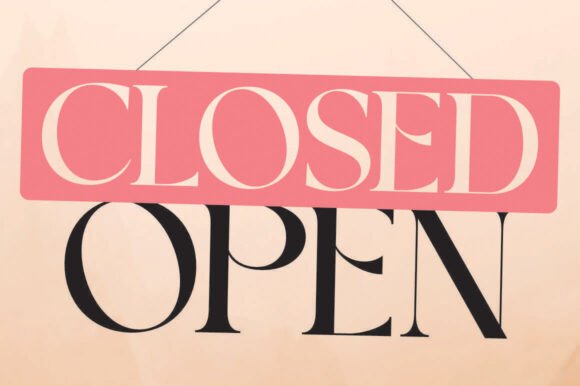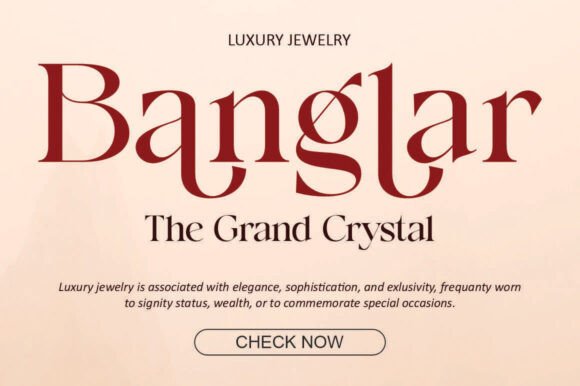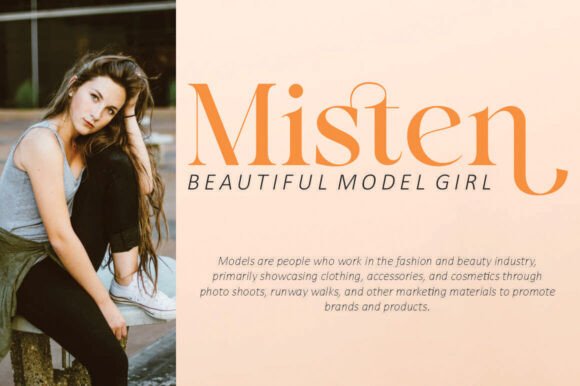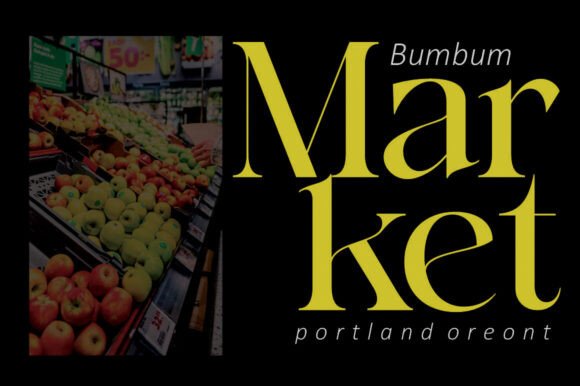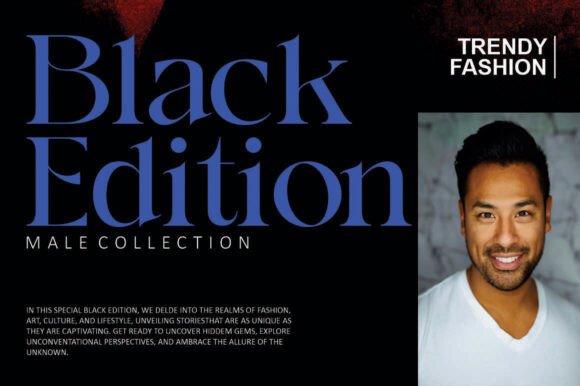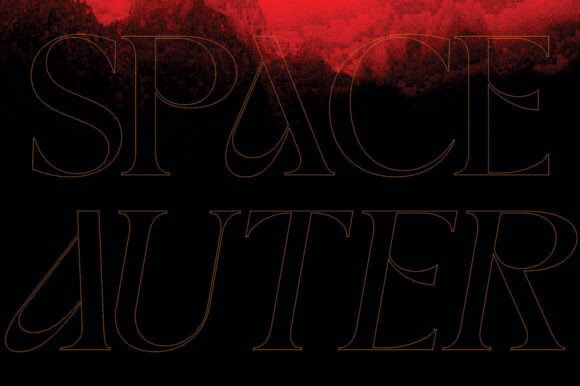
Introduction to Leostut Font
As a designer, there’s nothing quite like the thrill of discovering a new typeface that perfectly captures the essence of your creative vision. For me, that moment came when I stumbled upon the Leostut Font – a harmonious and stylish contemporary serif typeface that exudes a classic feel. Its timeless elegance made me think of a well-crafted sentence on a transparent background, perfectly balanced and easy to read.
With its versatility and high-quality design, Leostut Font has become an invaluable resource for designers seeking to elevate their projects. Whether you’re working on an editorial design, branding project, or packaging, this font is sure to deliver. And the best part? It’s available for free download, making it an accessible addition to any creative project.
- High-quality design resource ideal for creative projects, offering a unique and modern aesthetic.
- Perfect for use in graphic design, digital art, and other creative pursuits.
- Leostut Font’s unique characteristics make it a valuable addition to any design resource library.
- ✨ The Leostut Font is incredibly versatile, making it perfect for a wide range of creative projects, from graphic design to web design.
- ⚠️ While the Leostut Font is incredibly versatile, it may not be the best choice for projects that require a more traditional or formal font style.
Overall, I’m impressed with the Leostut Font. Its high quality, versatility, and free download make it an excellent resource for designers. While it may have some limitations, I believe it’s a great addition to any design library.
Leostut Font is a high-quality design resource ideal for creative projects. It offers a transparent background, making it easy to integrate into various designs.